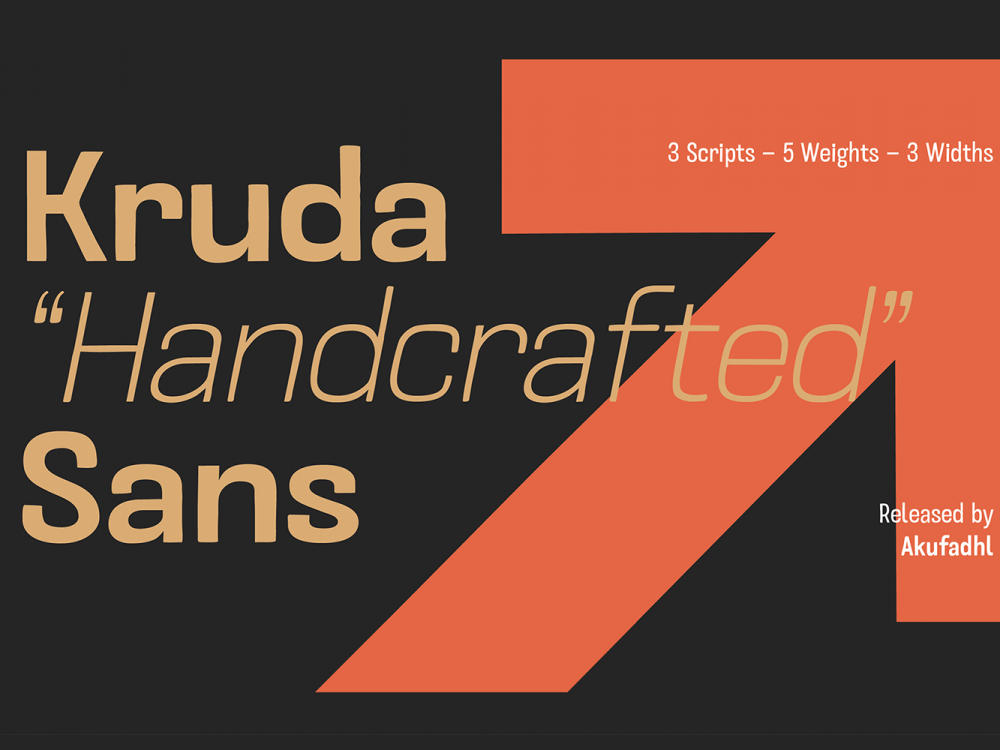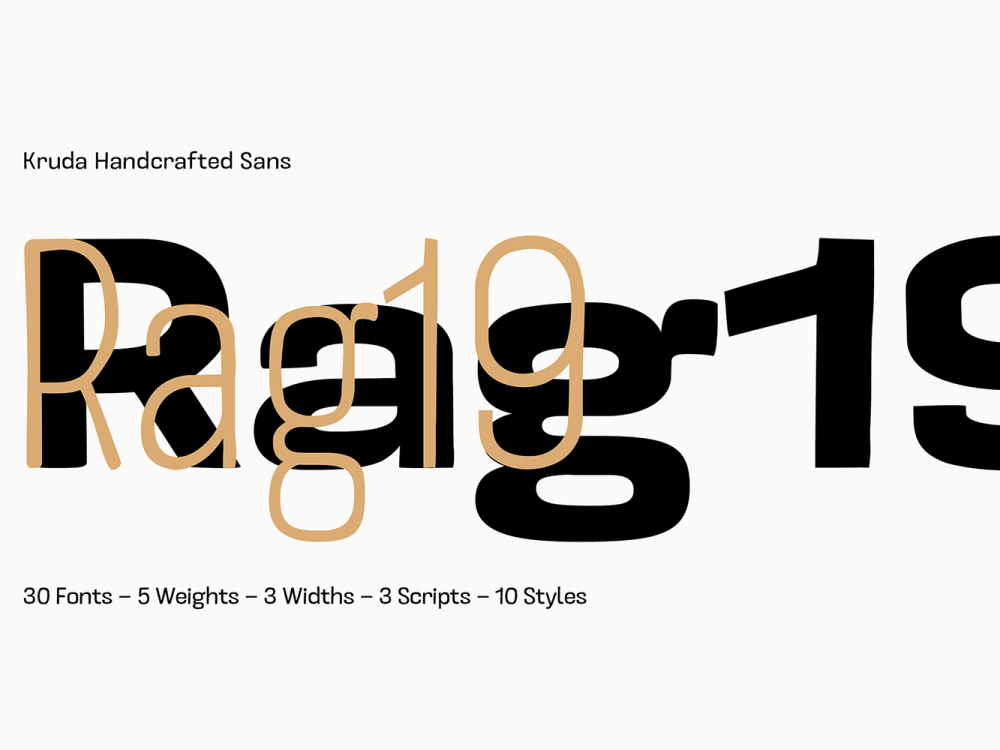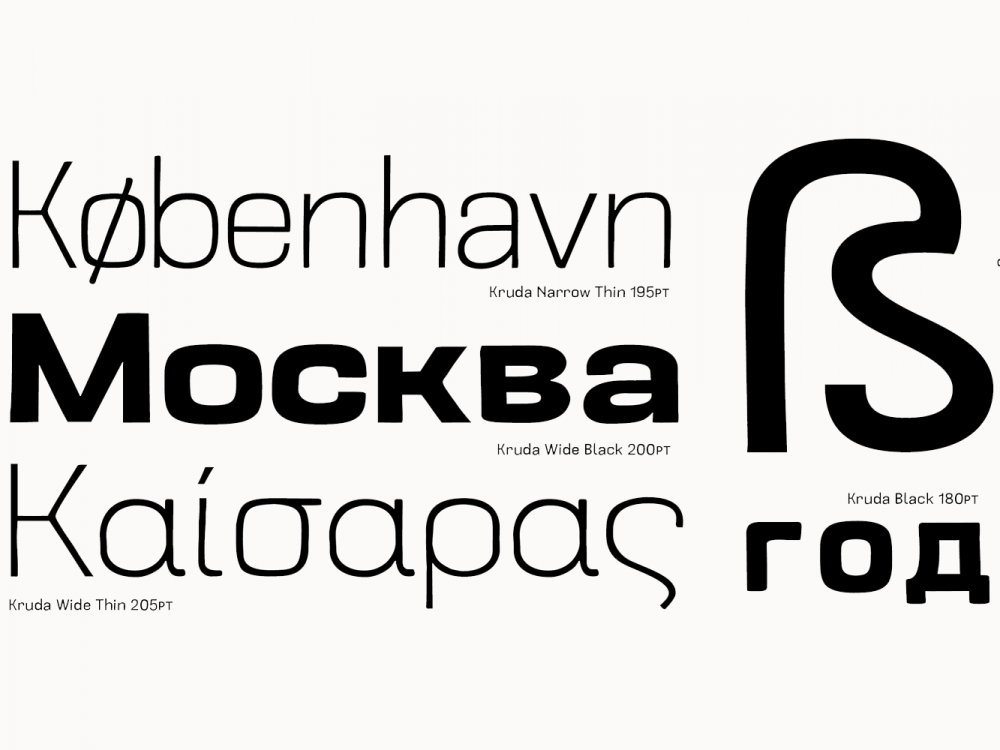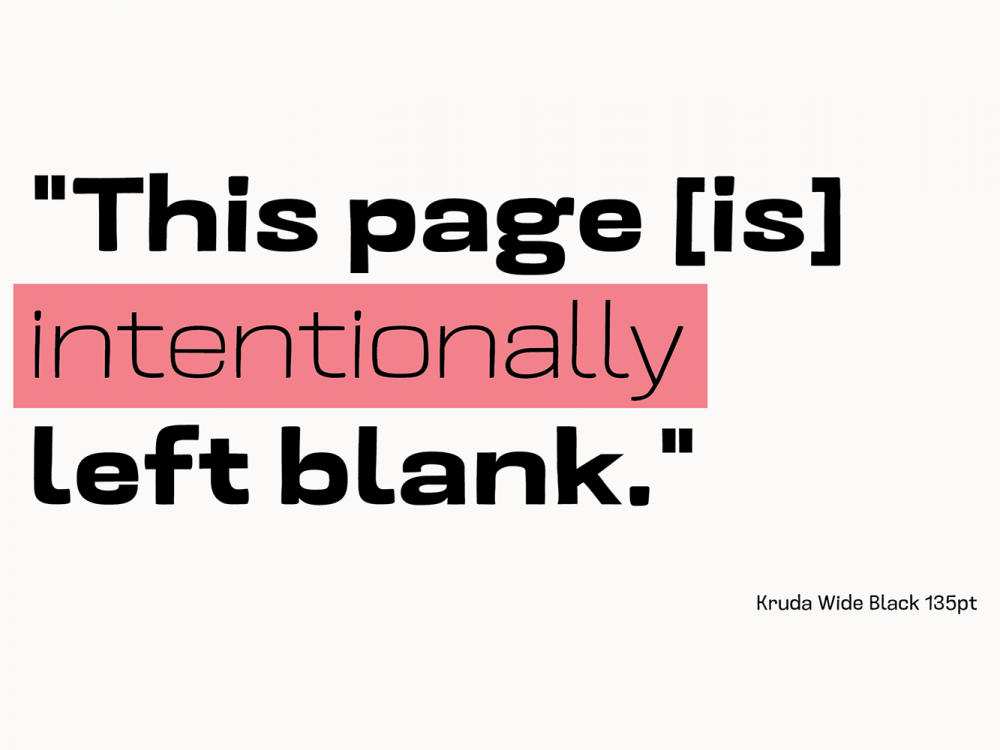
Kruda Sans Serif Demo Font
Kruda Sans Serif Demo Font is an interesting typeface inspired by the grotesque style of writing. This font is very suitable for creating various design projects that require a sans serif font. These can be posters, postcards, invitations, branding, flyers, prints, and more.